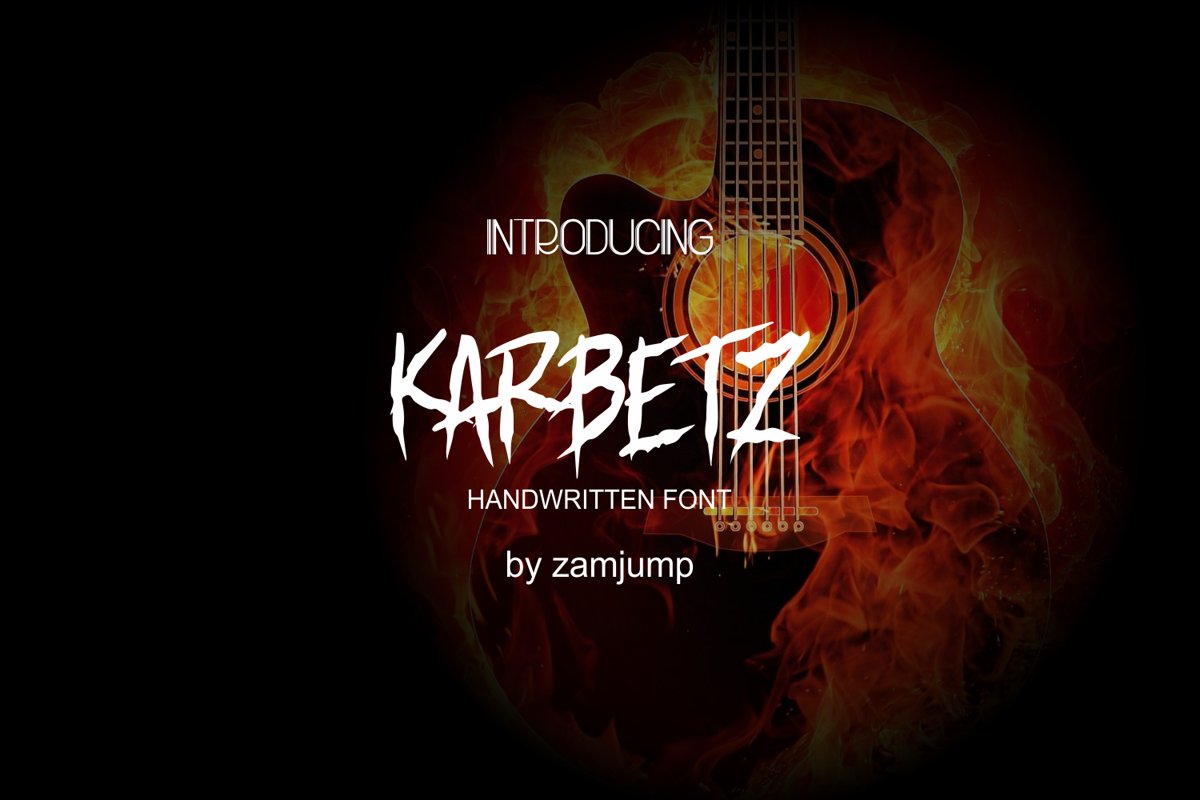
KARBETZ handwritten font
Karbetz
KARBETZ is a handwritten font, karbetz is a font that has a strong character, no need to touch again to display the arrangement of letters by letter if used for logo design, branding, posters, stage backdrops or others in an event extreme. karbetz is made with a special touch, so that the strong character is felt by those of you who have an extreme soul.